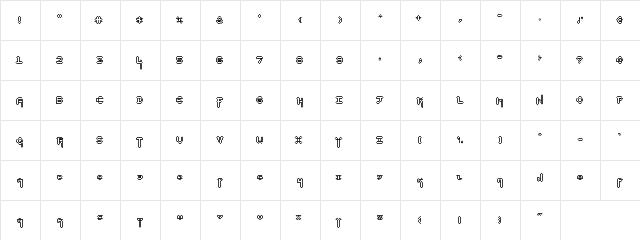
Kelunia Outline Regular
| Designer | StarRaven |
Design Context for Kelunia Outline Typeface
Kelunia Outline is built around its visual character rather than neutral utility — its distinctive forms are designed to make an impression at display sizes.